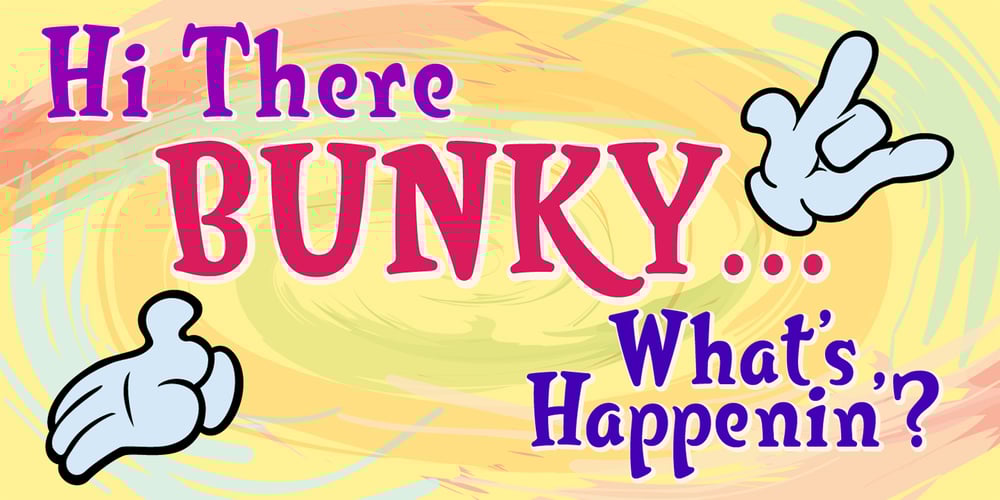
Bunky Font Family was designed by James A. Lebbad and published by Lebbad Design. Bunky contains 1 styles and family package options. Bunky is a fun font with a quirky twist. Bouncy and bold, it packs a punch for a funky headline!